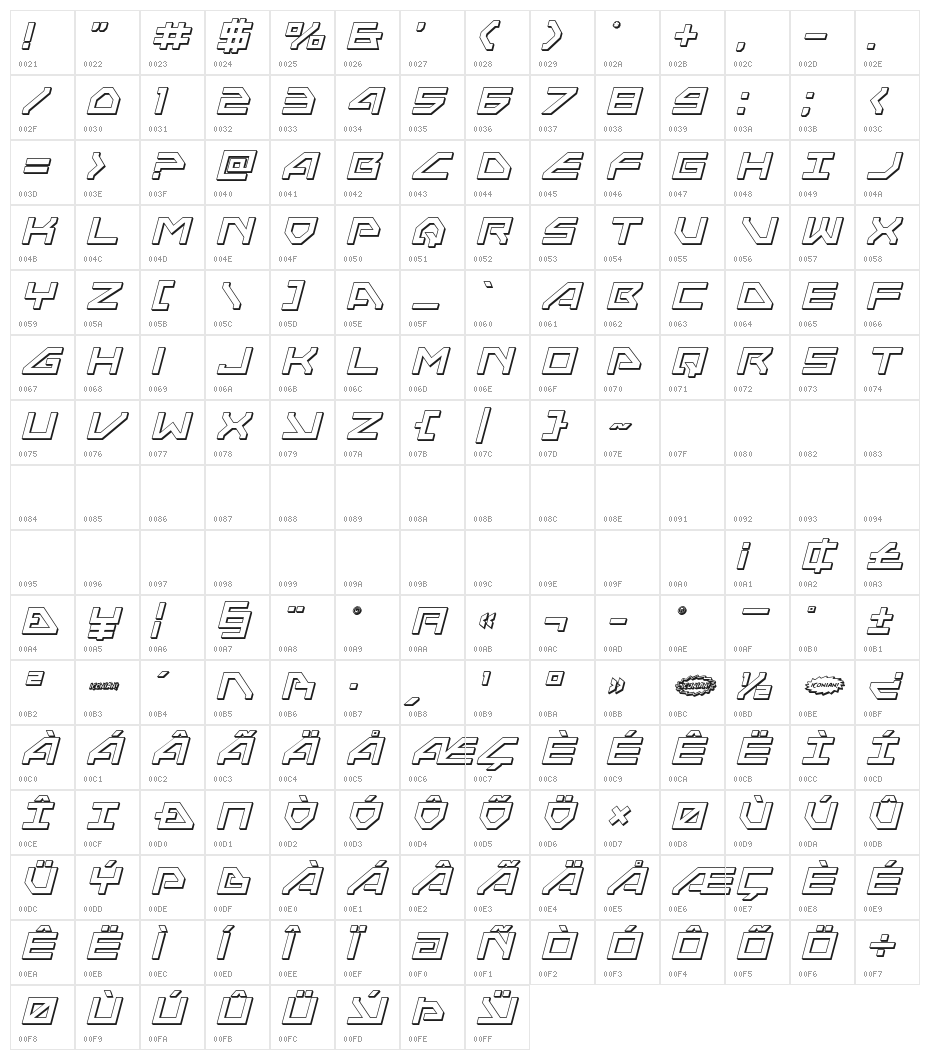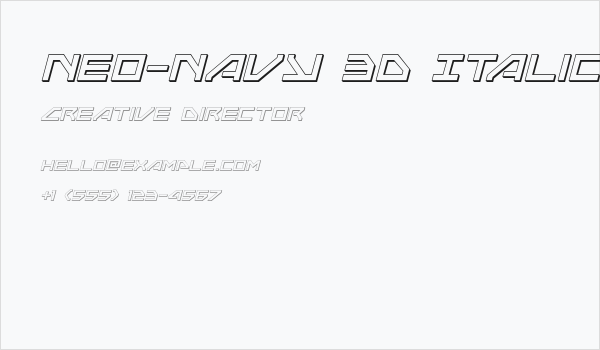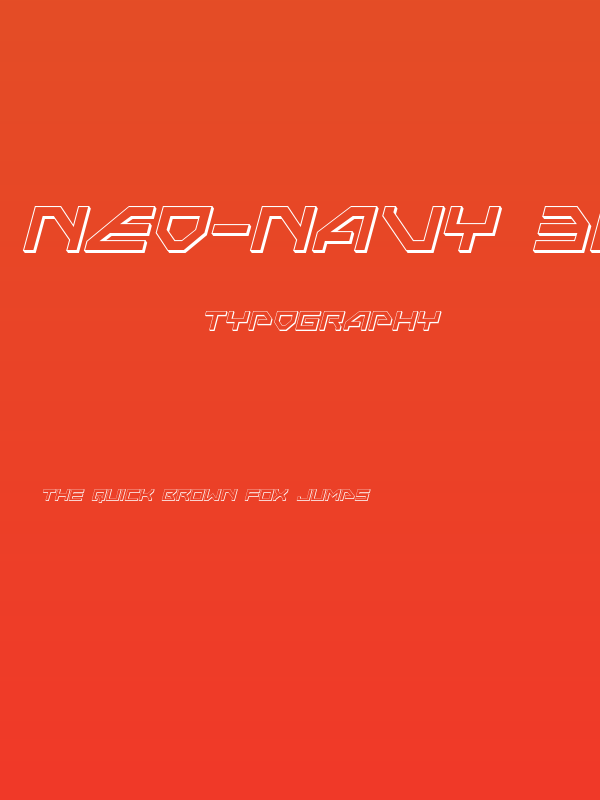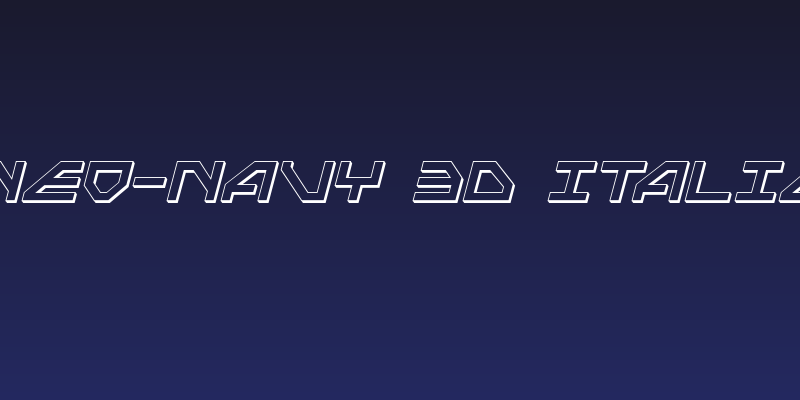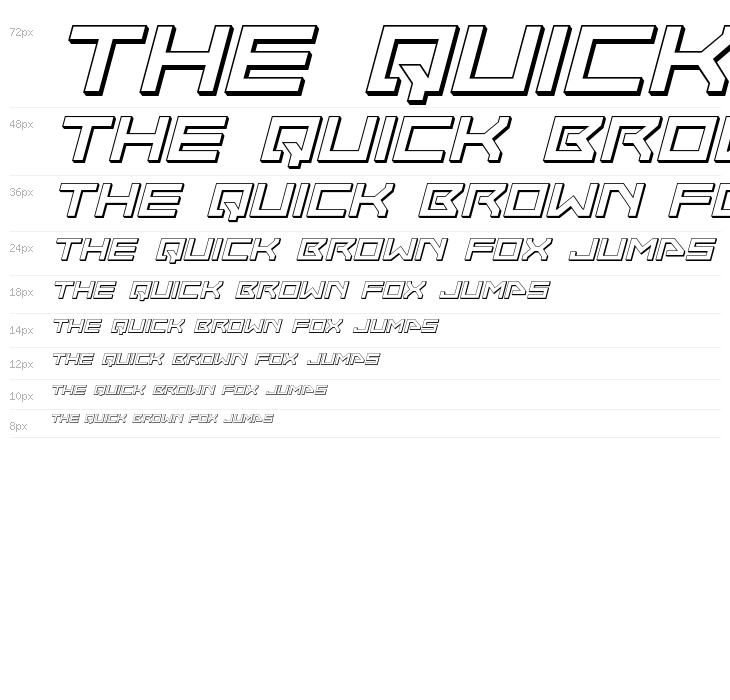
Neo-Navy 3D Italic Font
Neo-Navy 3D Italic Description
This font features a bold, three-dimensional design with an italic slant, giving it a dynamic and futuristic appearance. The characters are outlined with a double-line effect, enhancing the 3D illusion and adding depth. The angular and geometric shapes of the letters contribute to a modern and tech-inspired aesthetic. The uppercase and lowercase letters maintain a consistent style, while the numbers and special characters are designed to match the overall theme. This font is ideal for projects that require a strong visual impact and a contemporary look.
| Proposed Projects | Ideal for technology branding, video game titles, sci-fi movie posters, and modern advertising. |